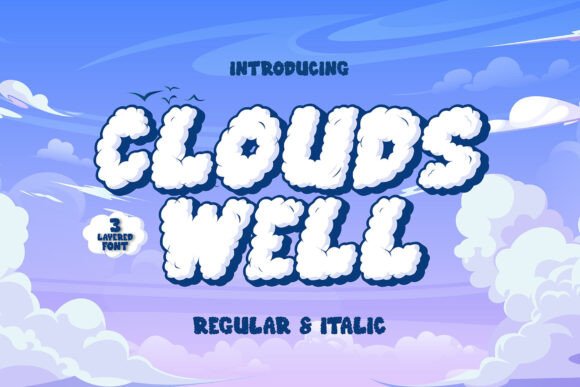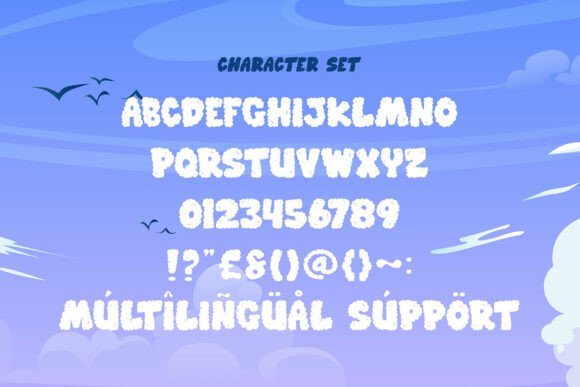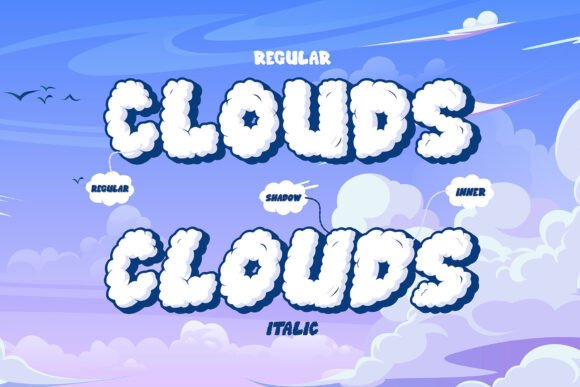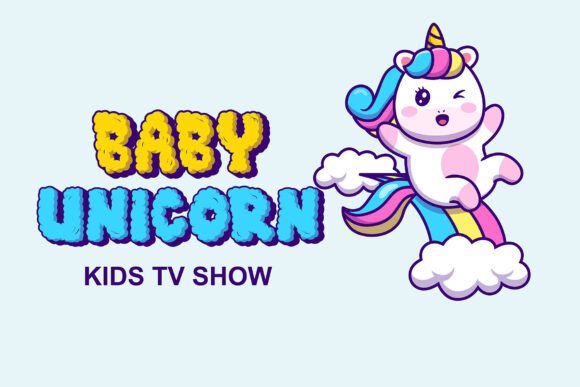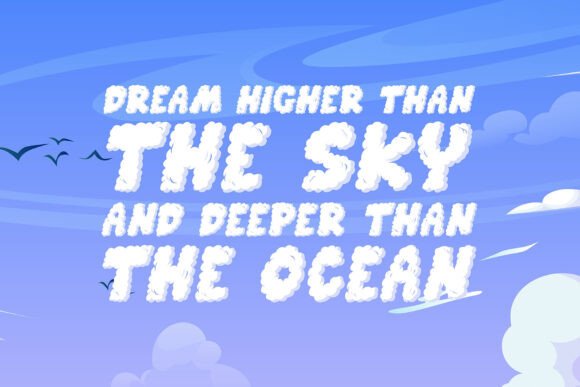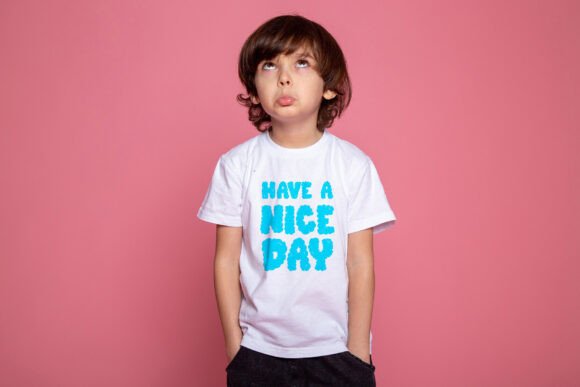
Introduction to Clouds Well Font
Imagine you’re sketching out ideas for a new branding project, and you stumble upon the perfect font to bring your whimsical concept to life. The gentle, dreamlike quality of Clouds Well Font instantly transports you to a world of endless possibilities. This enchanting 3D display font is inspired by the ethereal beauty of clouds, making it the perfect design resource for creatives seeking to infuse their projects with a soft, playful charm.
With its layered design, Clouds Well Font offers a world of creative possibilities. From solid standing as the foundational layer to shadow and inner shadow variants, you’ll find a range of choices to inventively layer and design. Whether you’re working on a child-friendly book cover or a breezy branding project, Clouds Well Font is the perfect high-quality design element to add a touch of imagination and lightheartedness.
Key Features of Clouds Well Font
- Unique characteristic: Clouds Well Font features a unique, hand-drawn style with subtle texture, adding a touch of elegance to any design.
- Perfect for use in creative projects, such as logos, branding materials, and editorial designs, where a high-quality font is essential.
Honest Review: Clouds Well Font
- ✨ High-quality design: The Clouds Well Font is incredibly detailed and has a professional look to it.
- ✨ Transparent background: This allows for easy customization and integration into various design projects.
- ✨ Wide range of uses: From creative projects to corporate branding, this font is versatile and suitable for a variety of applications.
- ⚠️ Limited font variations: While the font is beautiful, there are only a few variations available, which may limit its use in certain situations.
- ⚠️ Not ideal for complex typography: The font is best suited for simple, straightforward designs, and may not be the best choice for projects that require intricate typography.
Overall, I’m impressed with the Clouds Well Font. It’s a great resource for designers, and its high-quality design and transparent background make it a valuable addition to any design project. While it may have some limitations, I think it’s definitely worth considering for your next creative project.
Tips for Getting the Most Out of Clouds Well Font
Experiment with different font sizes, colors, and styles to create a unique design. Use the Clouds Well Font in conjunction with other design resources, such as images and graphics, to create a high-quality design. Consider using the font in a creative project, such as a logo or branding materials.
The Clouds Well Font is suitable for a variety of design projects, including logos, branding materials, and digital graphics. Its high-quality design makes it an excellent choice for creative projects that require a unique and eye-catching font.
Alternatives to Clouds Well Font
Open Sans is a popular, high-quality font suitable for various design projects. It features a clean and modern design with a transparent background, making it ideal for creative projects that require a clean and minimalist aesthetic. When to use: corporate branding, website design, and digital marketing materials. Compared to Clouds Well Font, Open Sans has a more straightforward and sans-serif design, whereas Clouds Well Font has a more playful and cursive feel.
Q: Is the Clouds Well Font suitable for high-resolution printing?
Yes, the Clouds Well Font is designed to be high-quality and suitable for high-resolution printing. Its crisp, clear lines and smooth curves ensure that it will look great on both digital and printed materials. You can use it for business cards, brochures, posters, and other print materials with confidence.